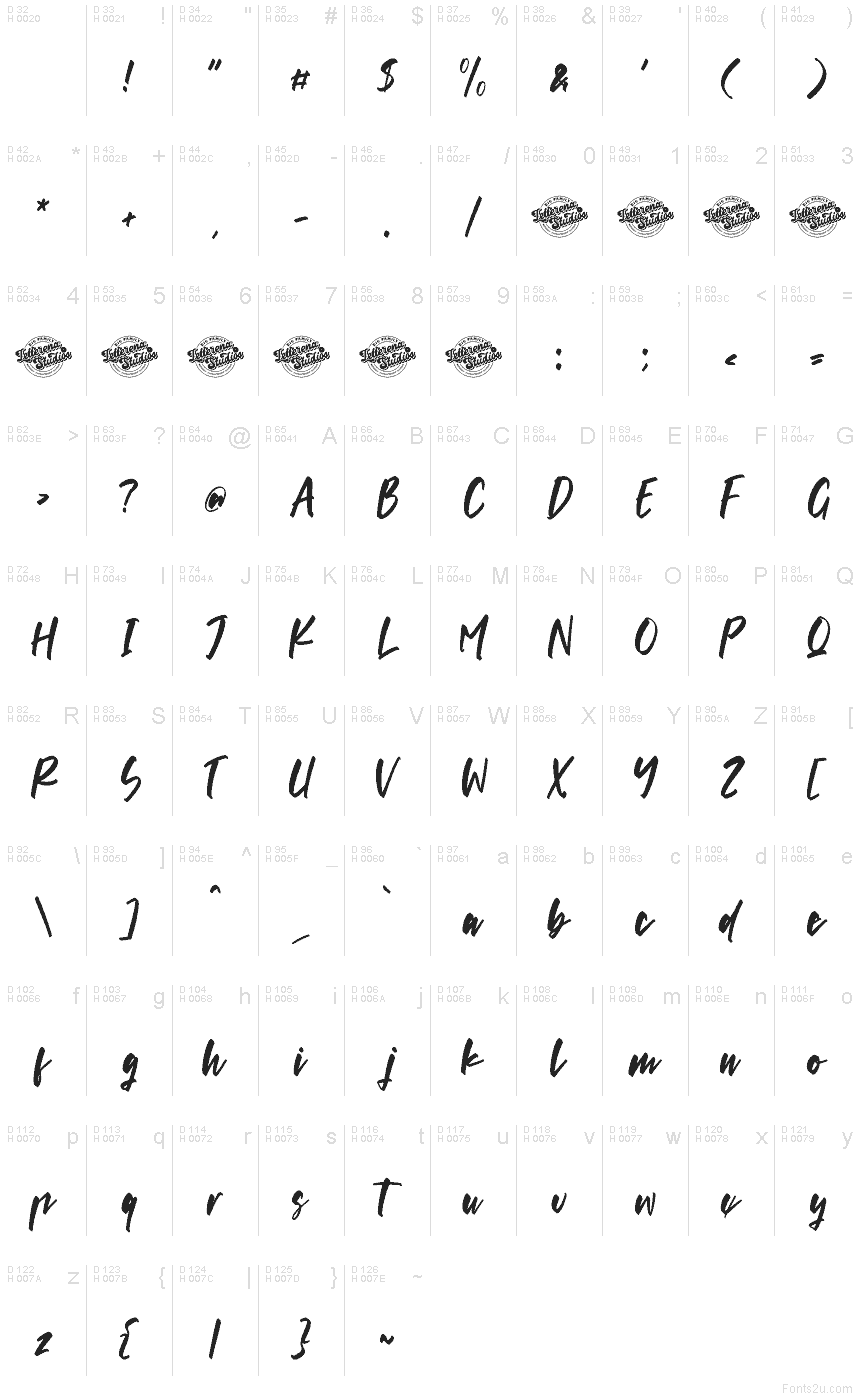
Shadows Highstter DEMO VERSION
Shadows Highstter font by Letterena Studios is a captivating handwritten signature font. The condensed structure beautifully merges an elegant appearance with its authentic style, allowing for sophisticated typography results. Letters have a truly mesmerizing look evident in both long and short texts.